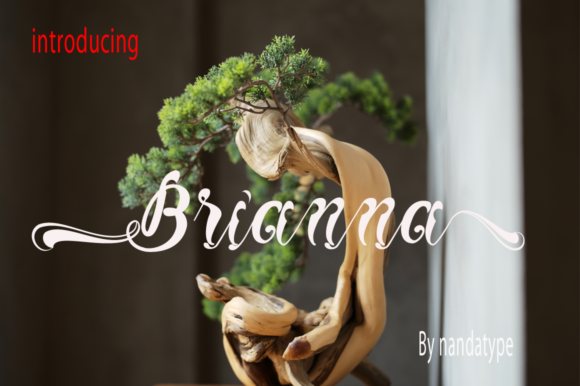
Brianna Font
About Brianna Font
Brianna is a lovely script font. It will add a luxury spark to any design project that you wish to create! This font is PUA encoded which means you can access all of the amazing glyphs and ligatures with ease!